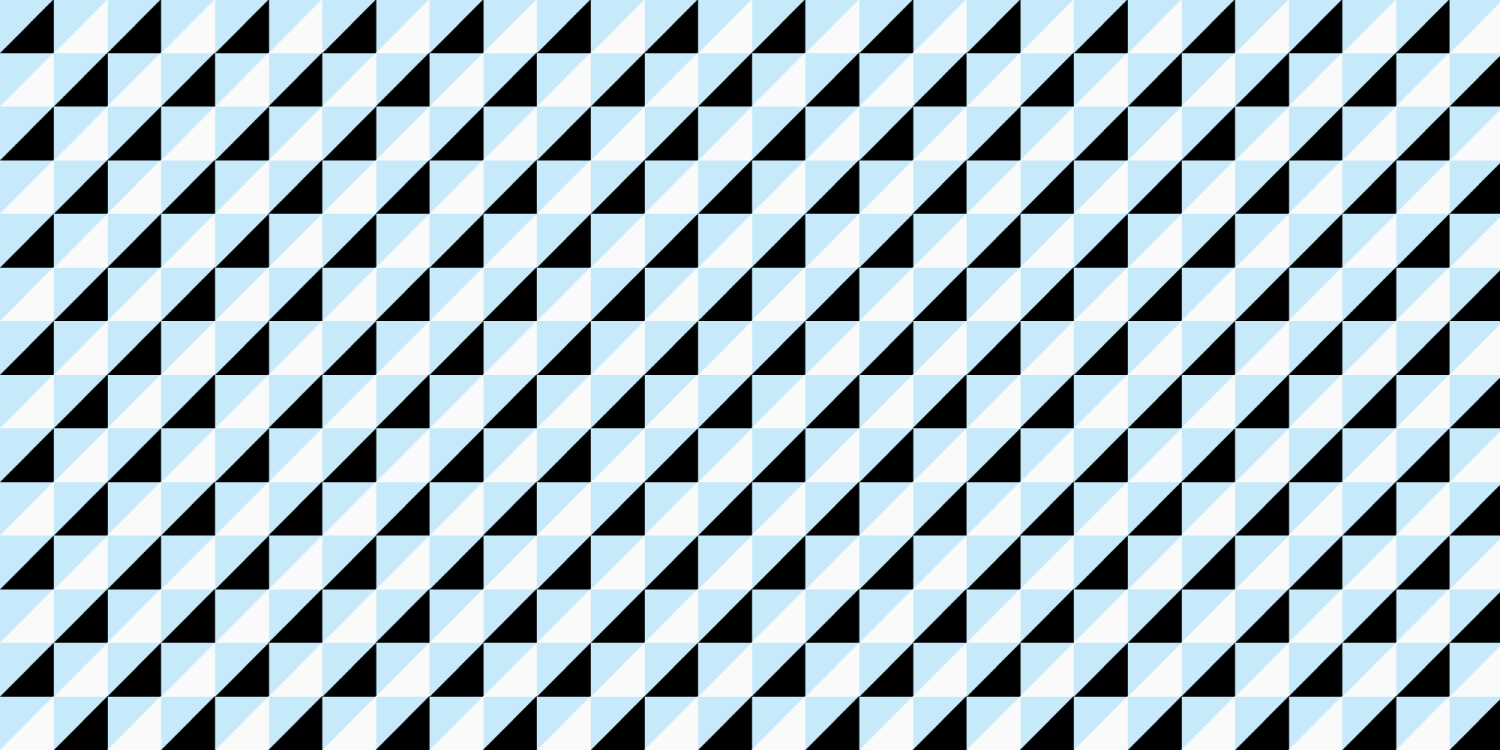
FormPattern
Font Family by Tarallo Design
FormPattern is an easy to use set of shapes with endless possibilities. It is excellent for making borders and frames, patterned lines and areas, or for simple ornamentation. Use it to add visual interest to books, end marks to articles, intro marks to chapters, greeting cards, illustrations, invitations, paragraph separators, textile patterns, and wrapping paper. Many of the forms can also be used to create letters. The imaginative designer will find no shortage of ways to make use of this clean modular font.
FormPattern comes in four fonts. Each font name ends with a different number (one, two, three, and six). The higher the number the more complex the forms within the font. The fonts can be used individually or together for patterns with varying complexity.
To be creative with this font family is simple. It is installed and used like any other font. Repeatedly pressing any key will make a repetitive pattern and varying the keys will create a varied pattern. Many of the forms in the glyphs are designed to seamlessly connect. Adjusting the letterspacing changes pattern's the horizontal density and altering the line spacing (leading) will change the vertical density. The diverse forms can be easily located in the glyphs palette of any software.
FormPattern began as sketches of mosaics in the southern Italian cities of Bari and Palermo. These mosaics were found in churches, yet their creation was informed by different cultures and spiritual traditions that had influence in Italy over the centuries. The mosaics not only represent the intentions of the Church, but also due to their connection to the art of Islam they symbolize the beautiful concept of harmony between god, humans, and the infinite. This concept is represented through continuous repetitive patterns made possible through underlying formal and mathematical planning.